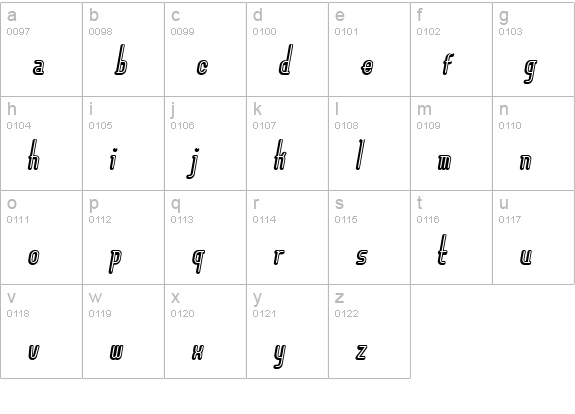
Centurysolid Font Details
Centurysolid font is a versatile and elegant typeface that seamlessly blends classic and contemporary design elements. Its strong and bold letterforms exude a sense of confidence and sophistication, making it the perfect choice for a wide range of creative projects. This timeless font features clean lines and perfectly balanced proportions, ensuring legibility and readability across various mediums and sizes. Whether used for print materials, digital designs, or branding, Centurysolid font effortlessly captures attention and conveys a sense of professionalism. The versatility of Centurysolid font shines through its extensive character set, which includes uppercase and lowercase letters, numbers, punctuation marks, and special symbols, allowing you to express your ideas with utmost creativity and precision. One of the most remarkable aspects of Centurysolid font is that it is available free of charge. Yes, you read that right – this exceptional typeface can be freely downloaded from FontsMarket.com. This means that you can enhance your design projects without any additional cost, allowing your creativity to flourish without constraints. Centurysolid font is a true gem in the world of typography, combining timeless elegance with modern design sensibilities. Download it today from FontsMarket.com and experience the sheer beauty and versatility of this remarkable font for yourself.